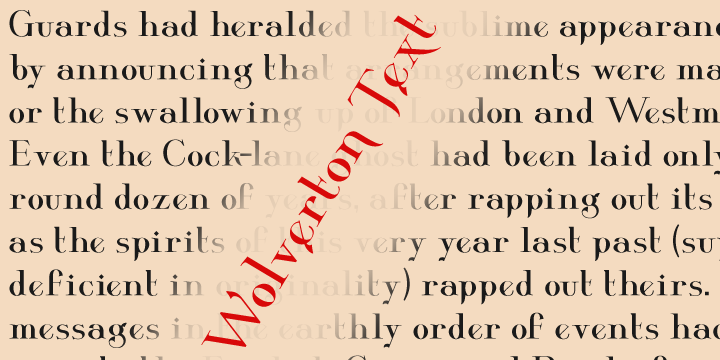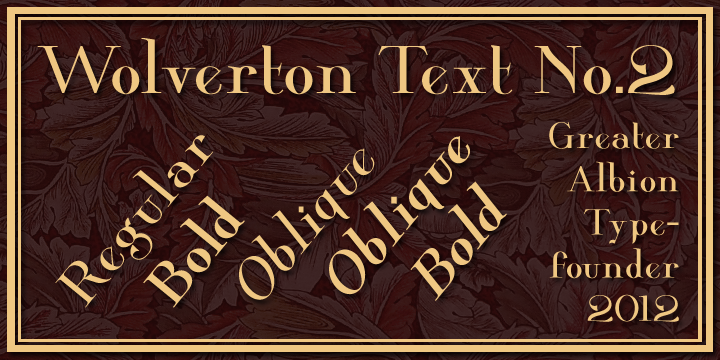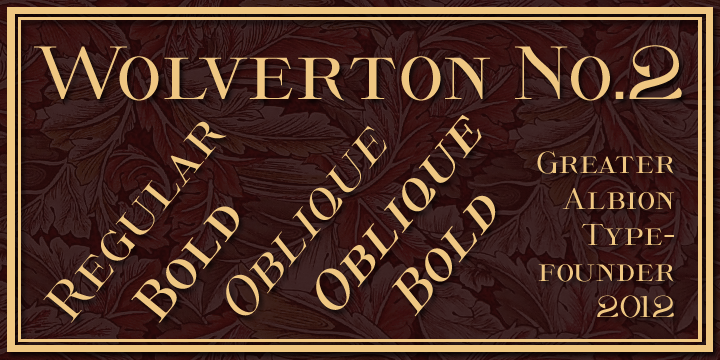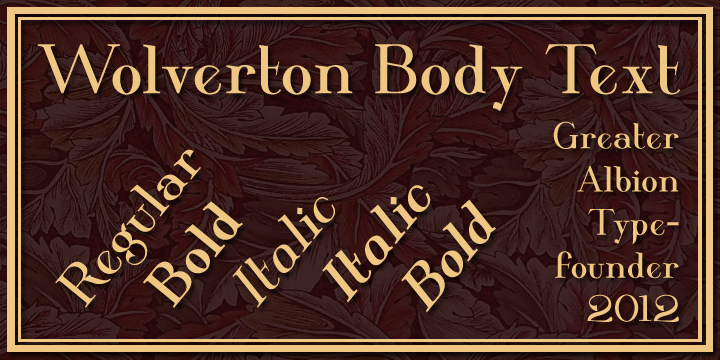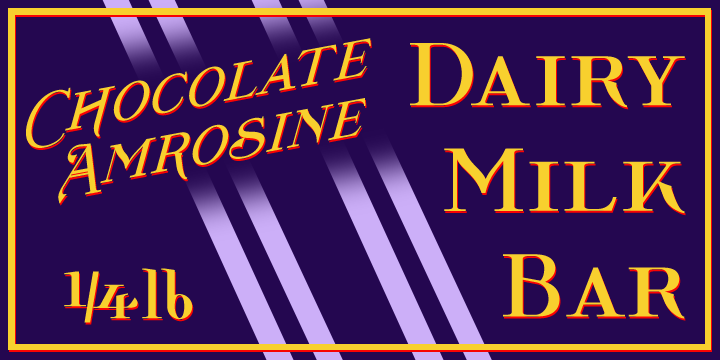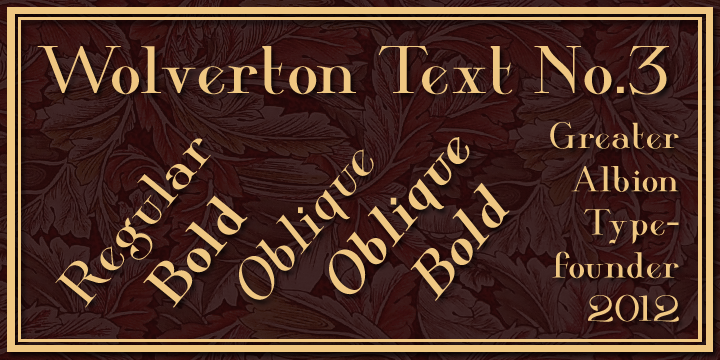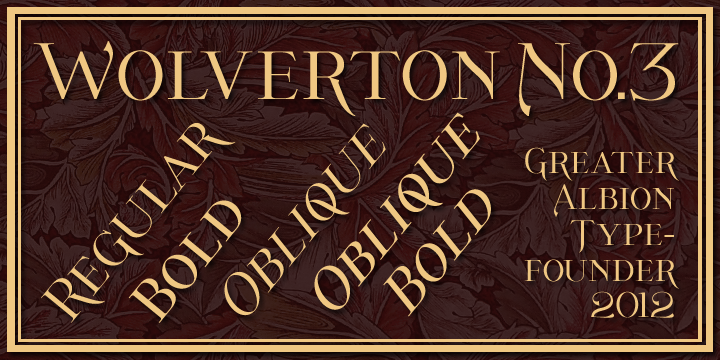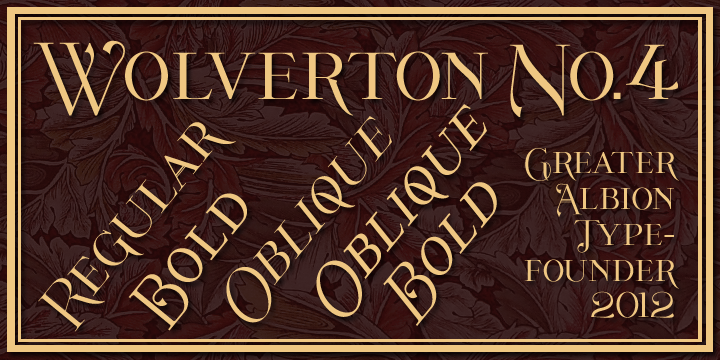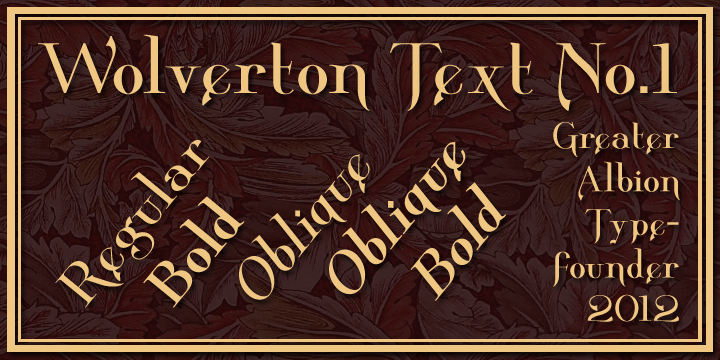
Wolverton is a serif and display serif font family. This typeface has thirty-three styles and was published by Greater Albion Typefounders.
The extensive Wolverton family was inspired but a turn of the 20th century luggage label designed by the
London and North Western railway. The Wolverton family combines period flair and charm with respect for the modern need
for legibility and purposefulness. The family has at its heart four Body text faces-regular, italic, bold and bolt italic.
These are complimented by three display text faces, offering upper and lower case letter forms, all offered in regular,
oblique, bold and bold oblique forms. Four all capital based display design are also included if offered in the same four
style, making an extensive and flexible family suitable for a wide range of uses- everything from setting large amounts of
text to large scale signage and poster work. Wolverton offers a unique blend of charm an modern flexibility, why not give
it a try today? All faces include lining and old style numerals and are extensively kerned. Individual faces are all